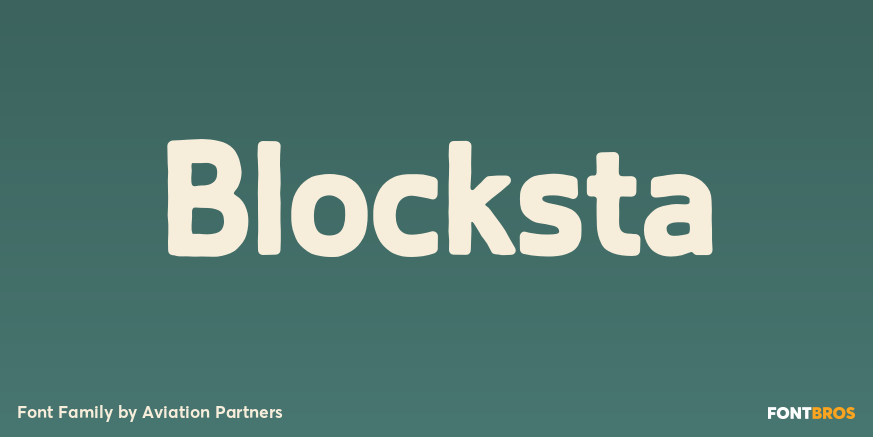
HomeFont BrosSans SerifBlocksta Sans Serif Blocksta FacebookXPinterestWhatsApp 1 of 1 About Blocksta Based on the character shapes of Atria Bold, Blocksta is a bullish rough cut sans with extensive language support. Hopefully it won\’t start another cold war.  DOWNLOAD NOW People also explored Activeb Font Yoimiya Font Menttarich Duo Font Bridge Megaword Font Siloka Font Captures Font Vincent Font Stitch Font 489 0 TagsBlocksta Font Previous articleThe CarpenterNext articleUnita LEAVE A REPLY Cancel reply Comment: Please enter your comment! Name:* Please enter your name here Email:* You have entered an incorrect email address! Please enter your email address here Website: Save my name, email, and website in this browser for the next time I comment. Personal Use Free Hillgates Personal Use Free Read more about this font Rosebirth Personal Use Free Read more about this font Hair Thinned Personal Use Free Read more about this font Lover Loves Personal Use Free Read more about this font BLOG Fonts That Capture the Spirit of New York City New York City is more than just a place—it’s an experience, a rhythm, a visual language... 5 Fonts That Will Dominate Design Trends in 2026 Transform Your Website: Elevate Your Typography with 7 Best Web Font Generators Exploring Font Trends